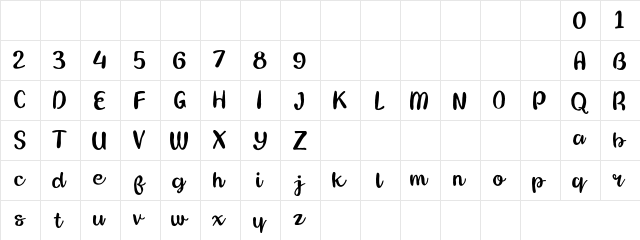
Zanzibar Regular
Design Context for Zanzibar Typeface
Zanzibar is a composed and adaptable typeface that performs quietly and consistently across a wide range of design contexts.
Pro Tip: Pair Zanzibar with a font of contrasting weight or personality to build a more expressive typographic hierarchy.